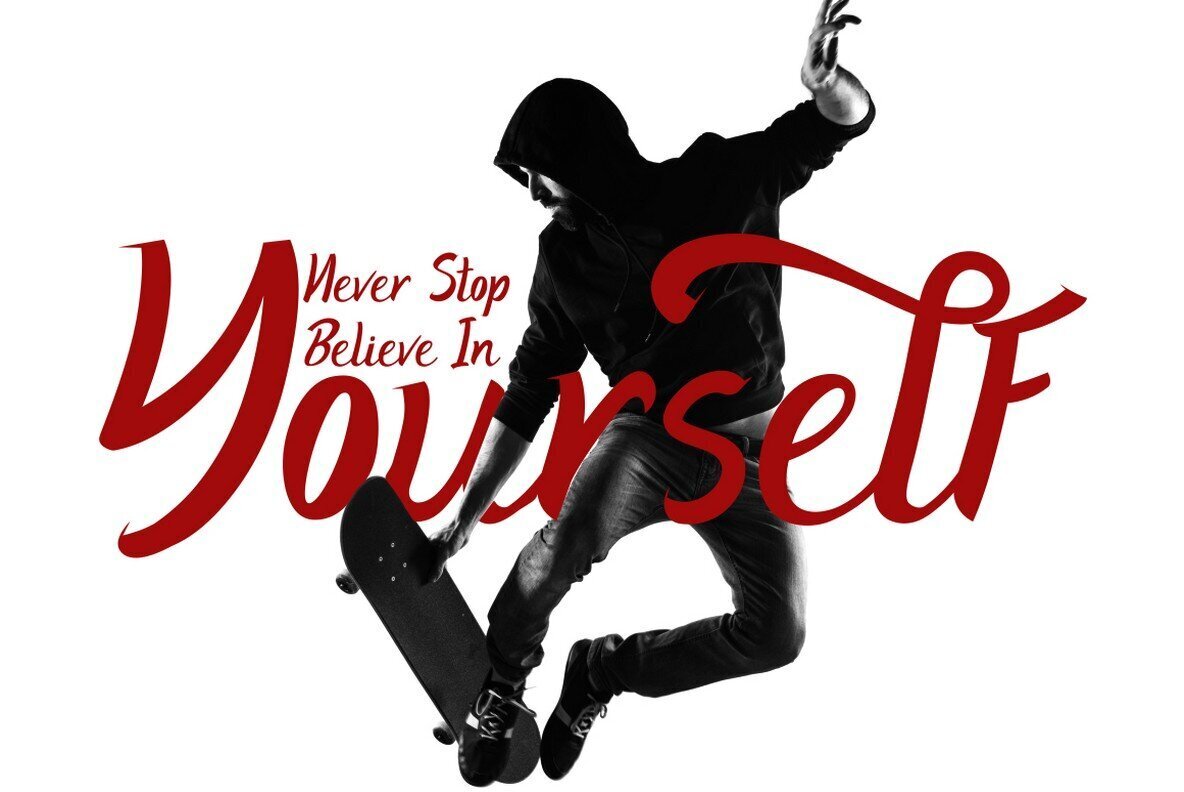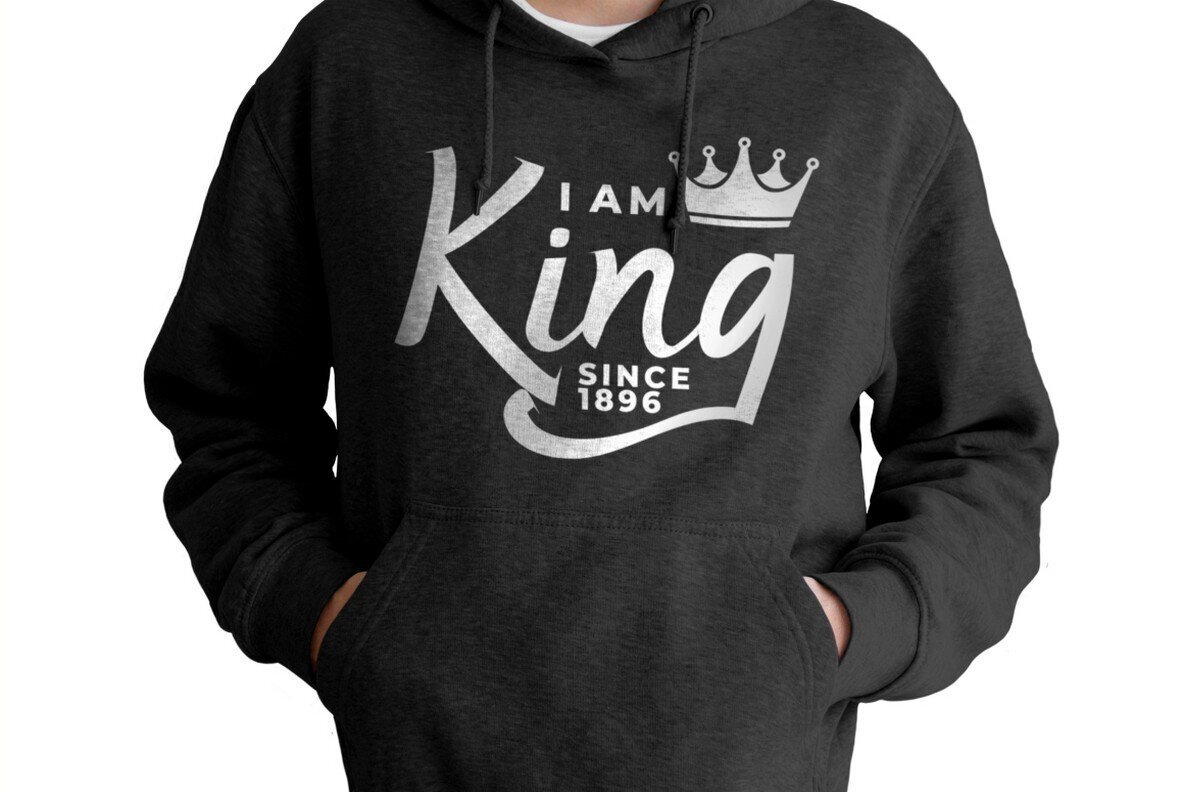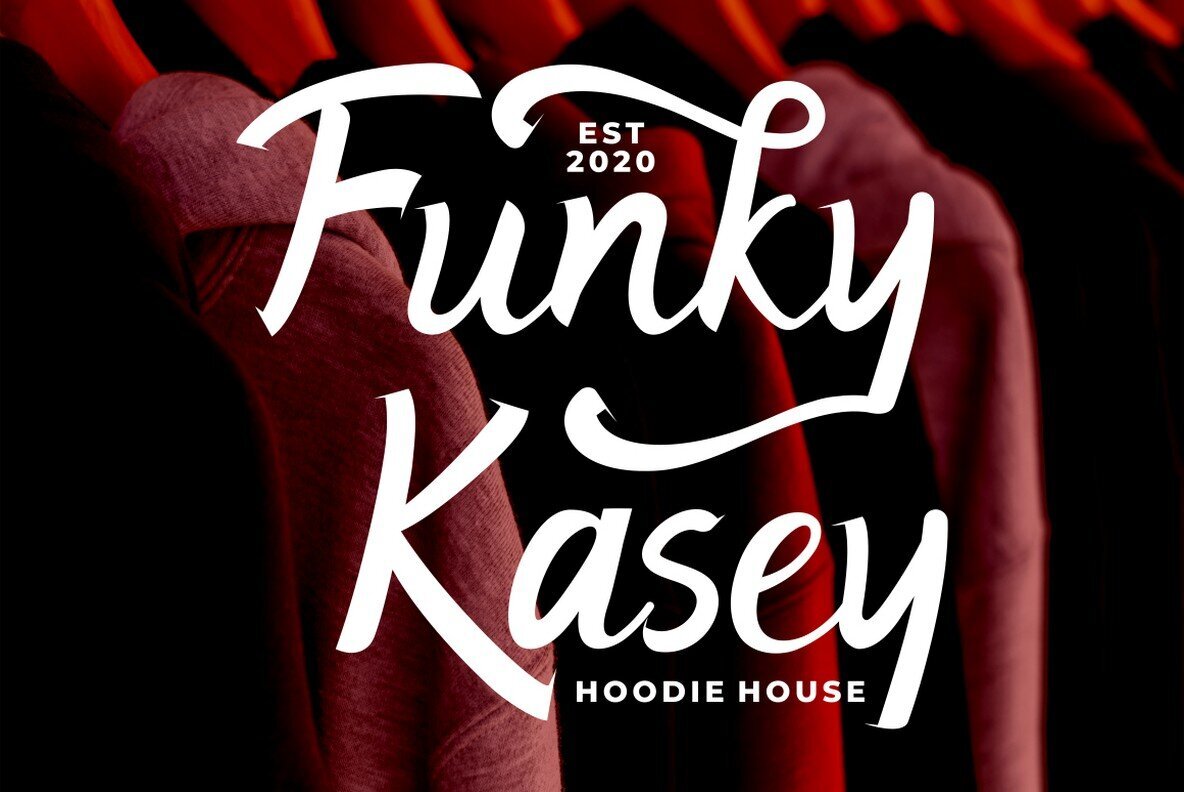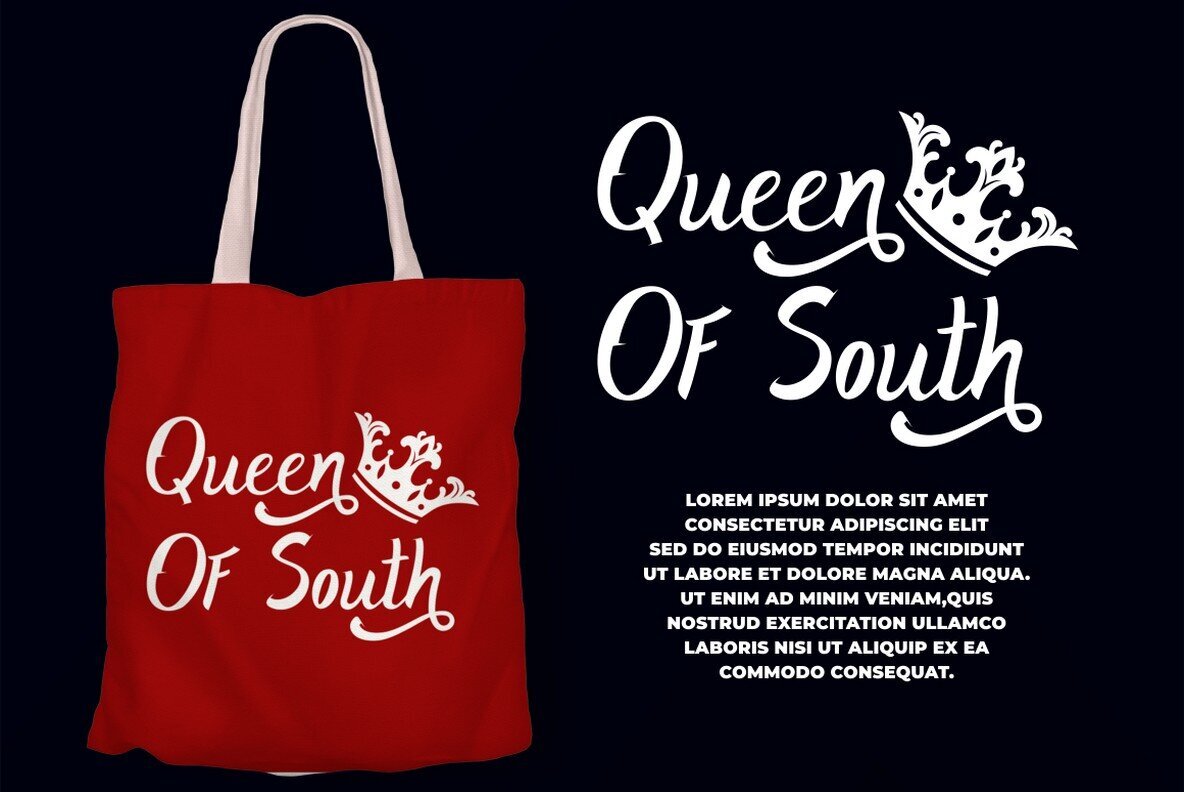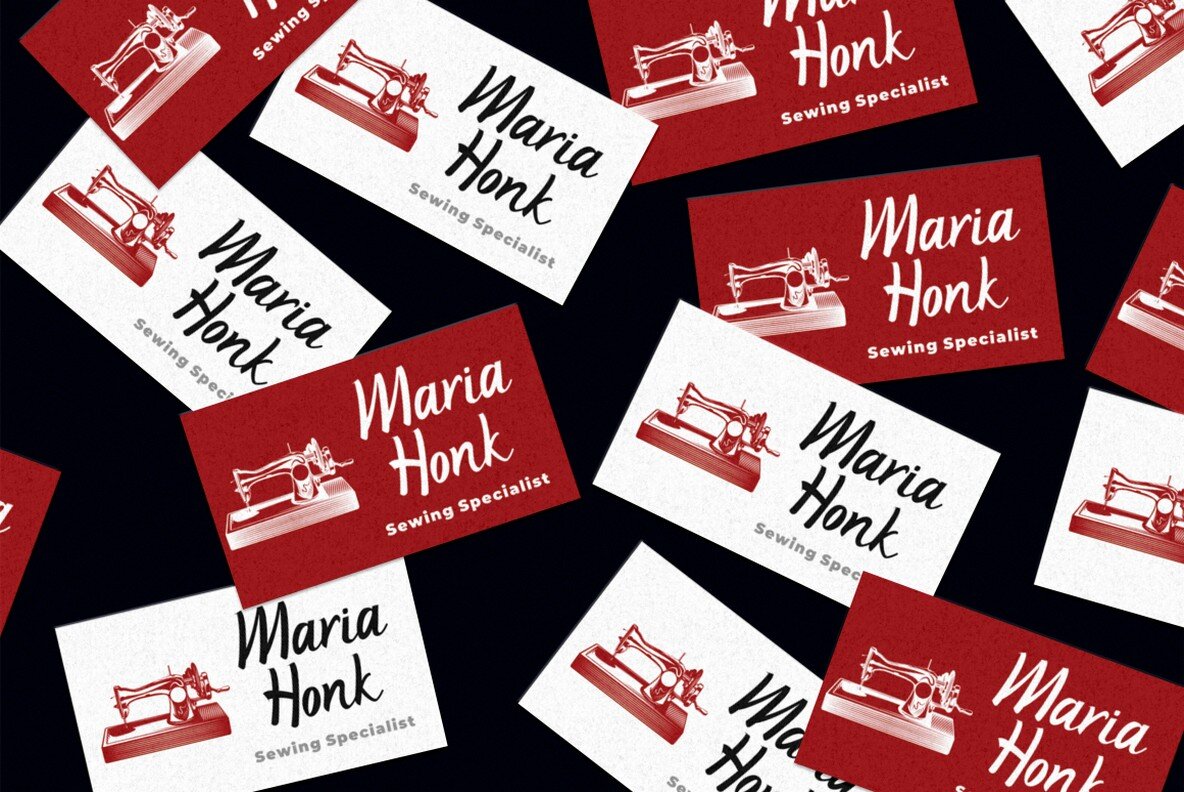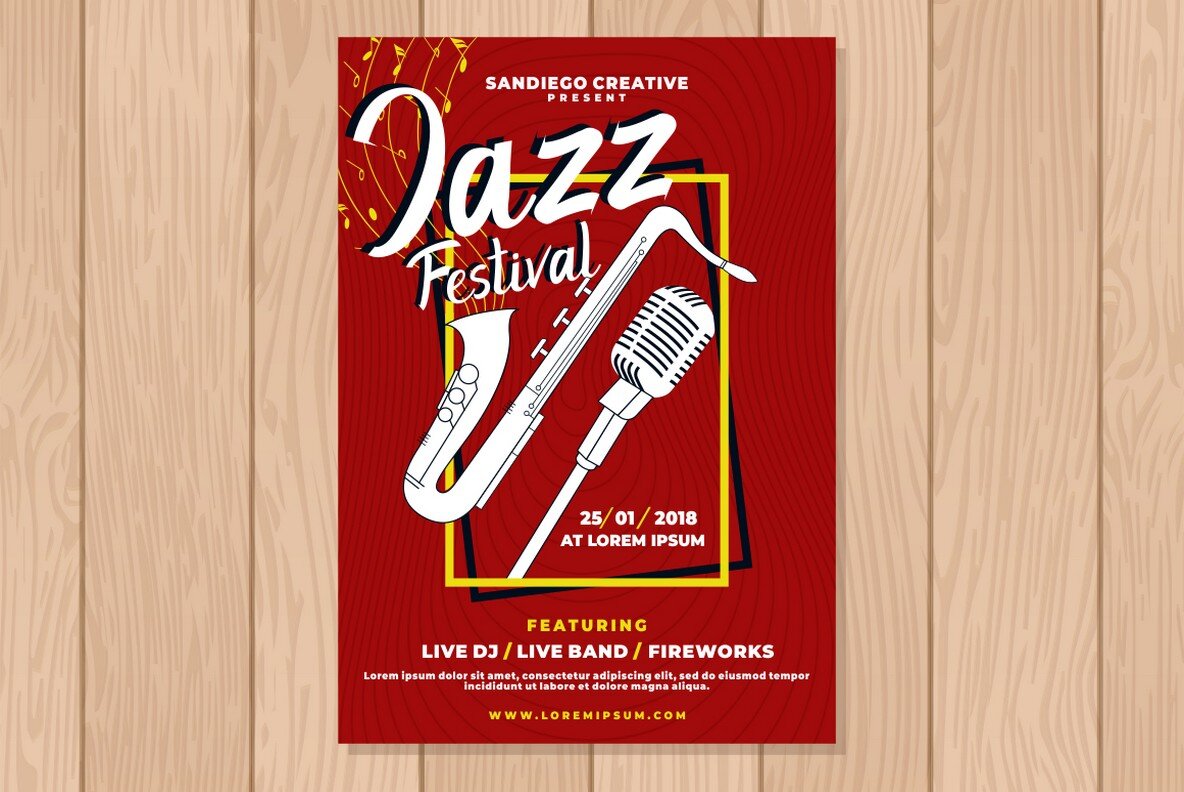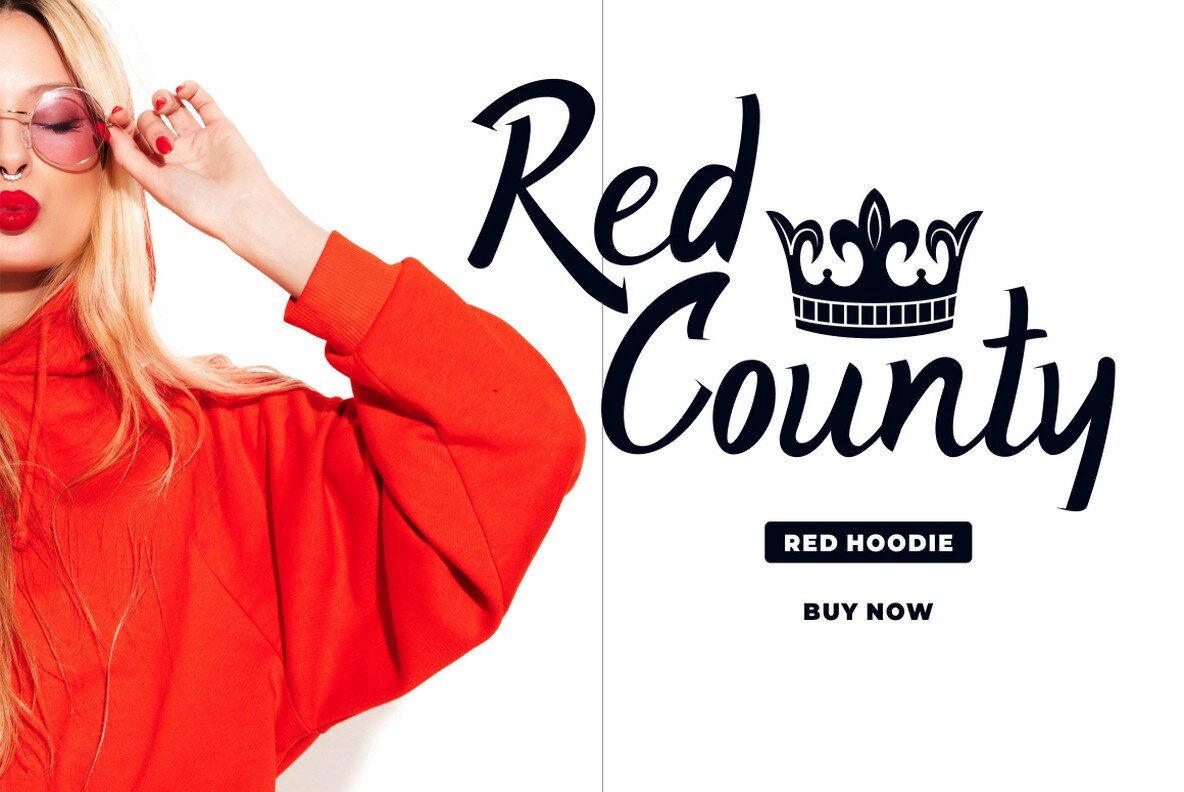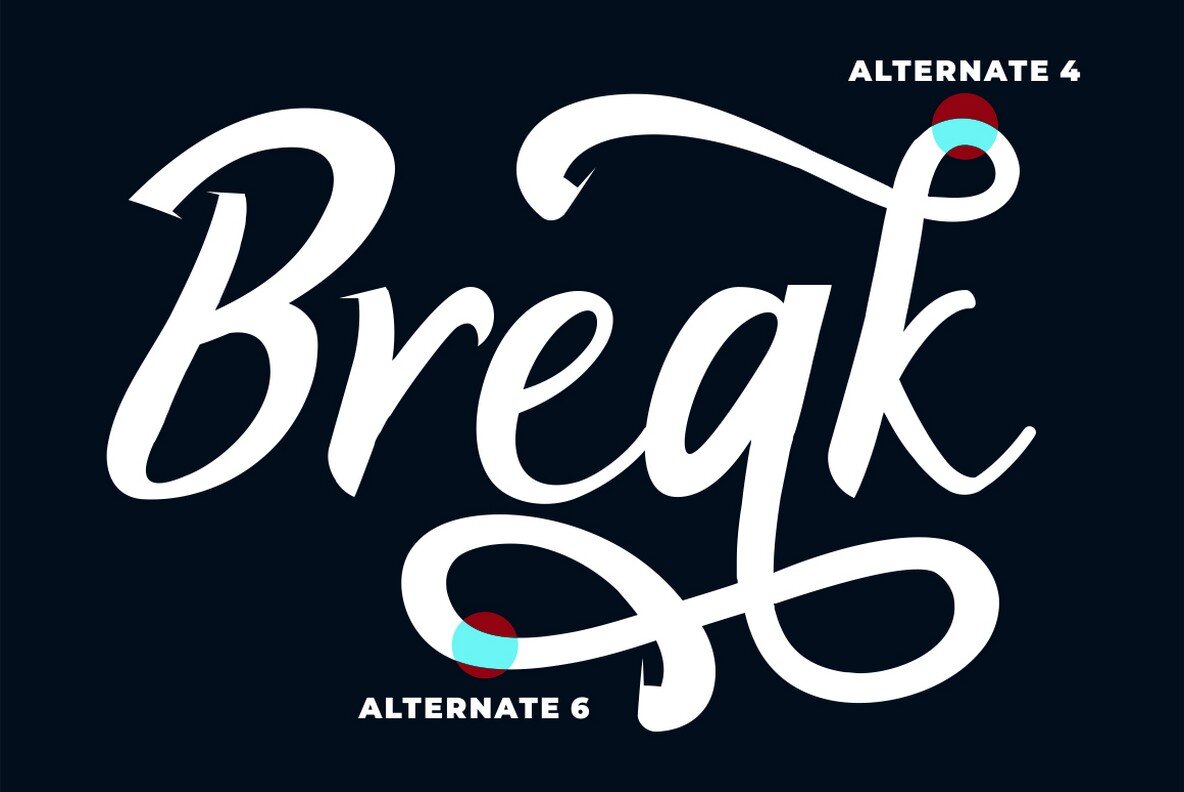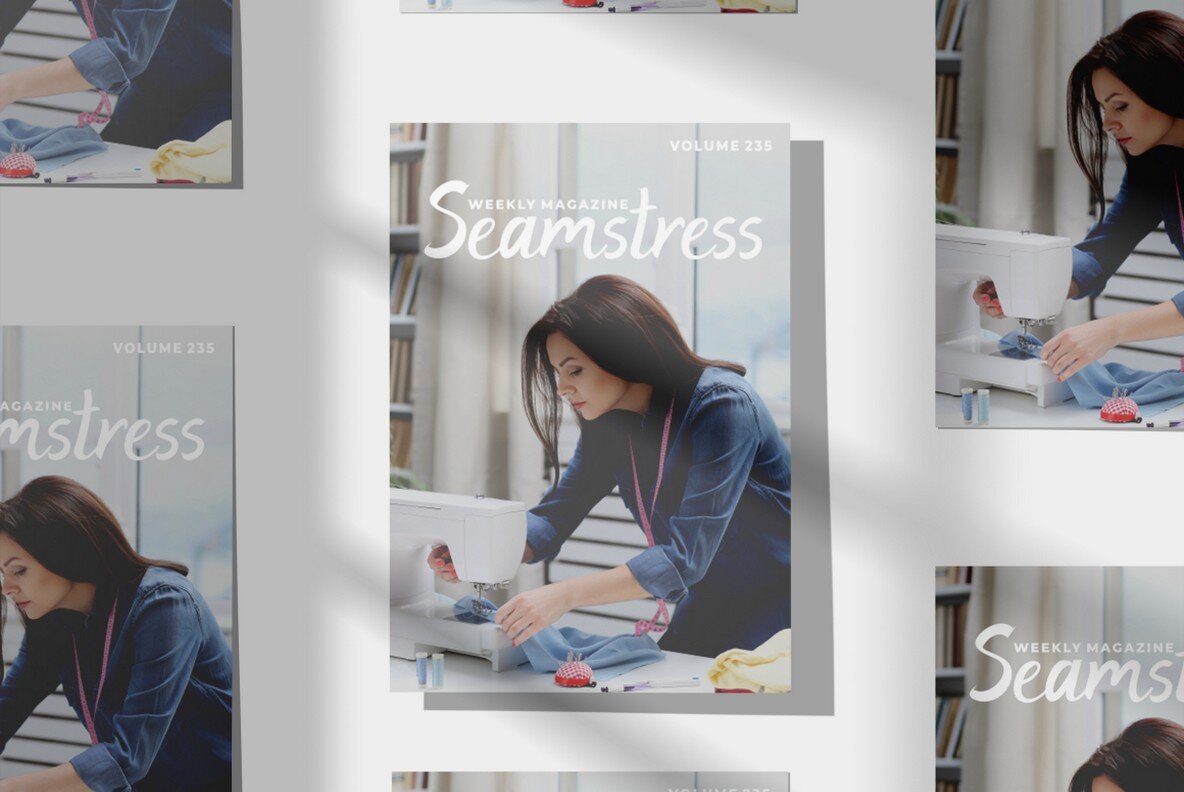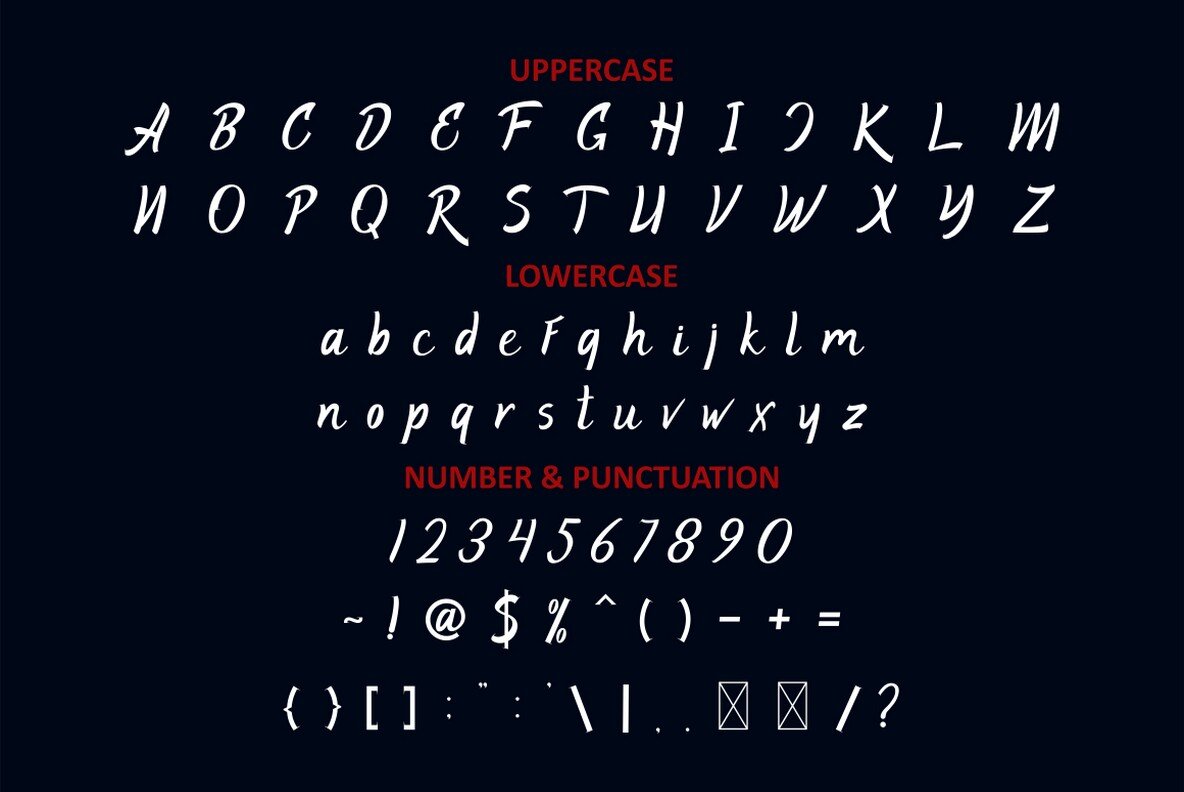
Holian Font
Holian
The Holian font embodies the dynamic energy of magazine covers and the bold aesthetic of streetwear lettering. Its striking design makes it ideal for logos, badge design, apparel, and a variety of promotional materials, from event banners to social media graphics. This versatile script font captures attention with its modern flair. Holian is a bold choice for those seeking a vibrant, modern script font that spans across various design needs.Holian: A Bold Script with Streetwear Influence